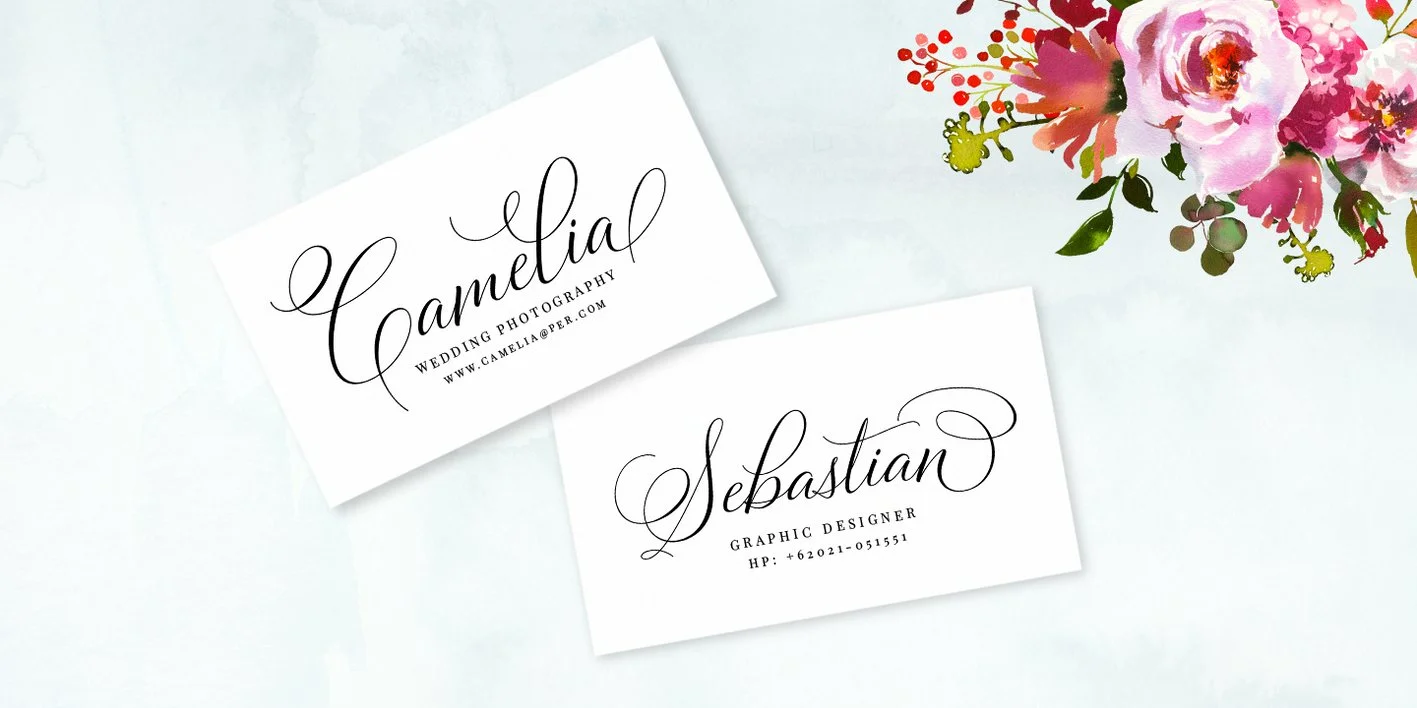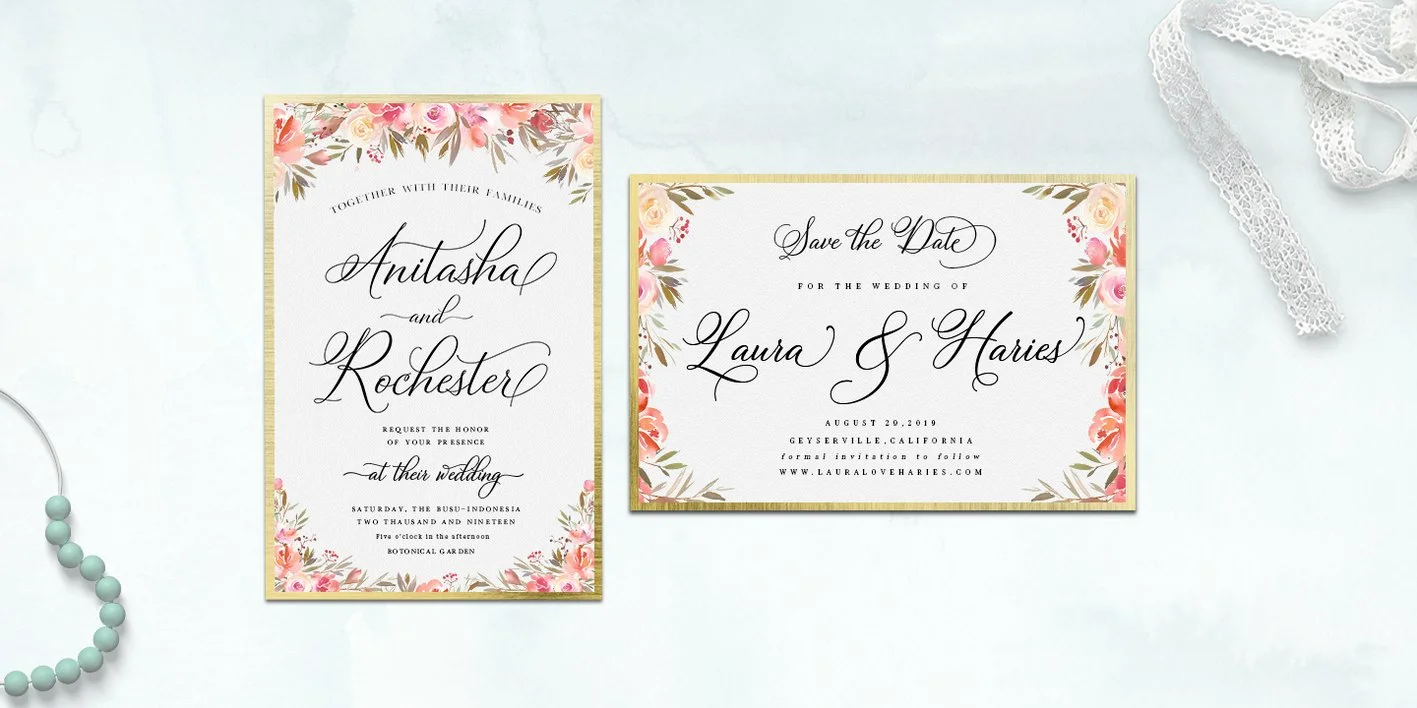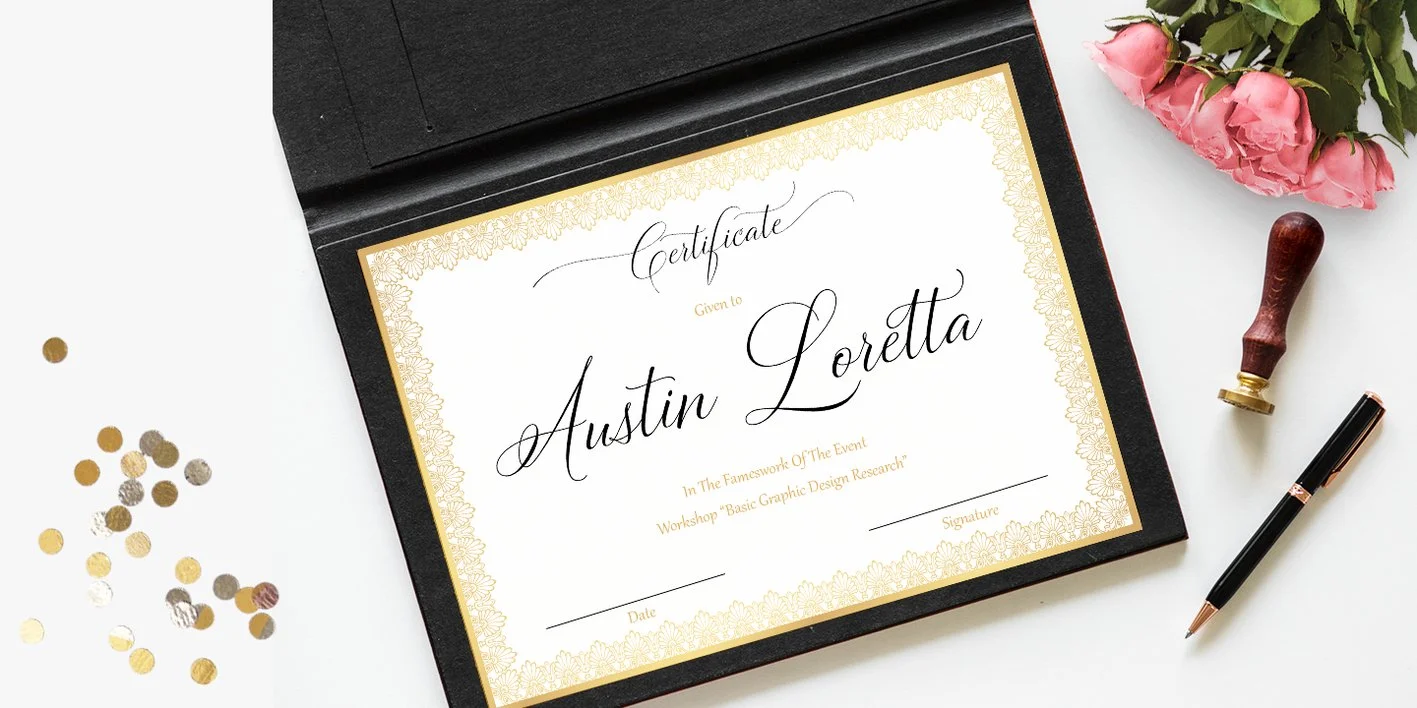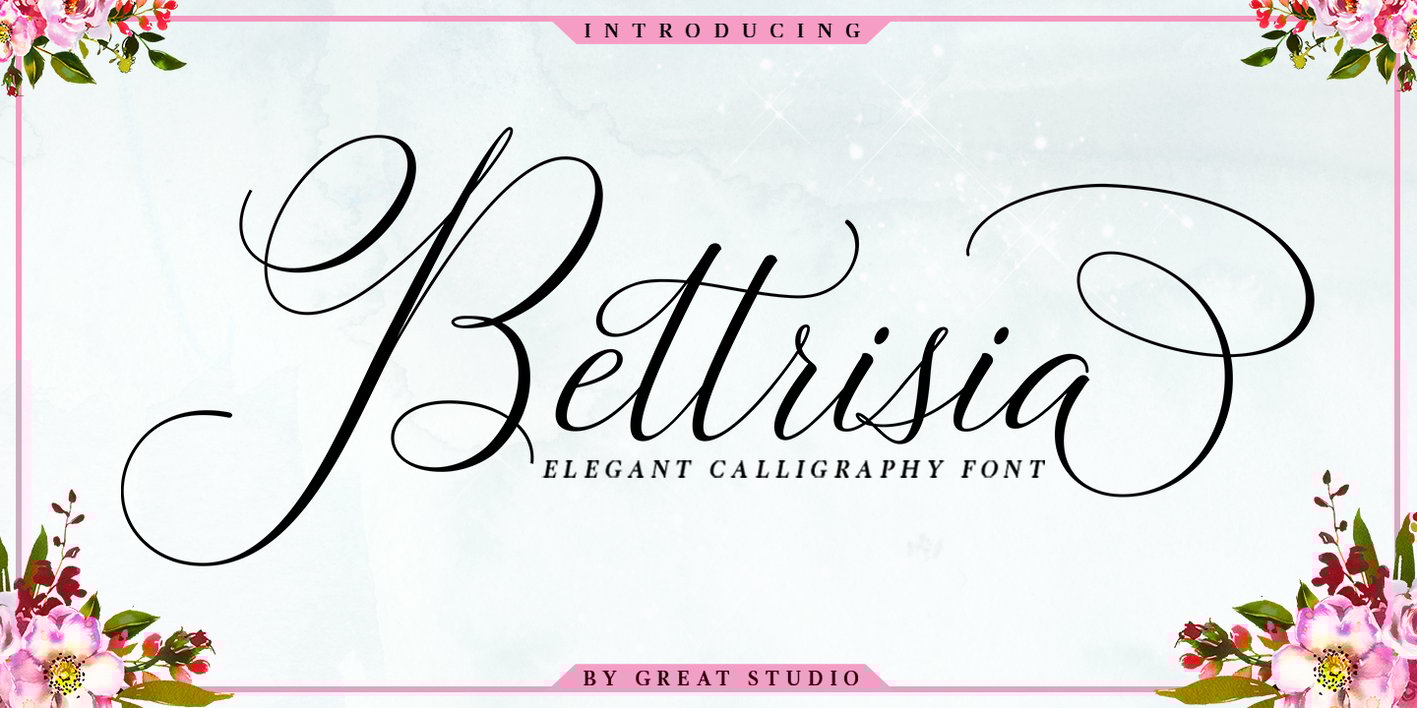
Bettrisia Script Font
There is a particular satisfaction in finding a typeface that delivers refined proportions and careful stroke modulation without compromise. Bettrisia Script consistently provides it. The typeface brings an elegant, calligraphic sensibility to a broad range of creative disciplines, with strong typographic hierarchy support that holds up whether the work is print-first or screen-first.
In practice, Bettrisia Script proves particularly effective for perfume labels, feminine branding, social media graphics, advertising campaigns, editorial layouts. Designers reaching for it find that the type decisions feel resolved rather than laboured — a useful quality when client timelines are tight.
The range of applications extends to product labels, event signage, signage systems, high-end cosmetic packaging. That breadth is deliberate: the proportions and spacing were stress-tested across a wide range of mock briefs before the typeface was finalised.
Pairing Bettrisia Script with a contrasting serif or a neutral grotesque gives mixed-format layouts a clear visual grammar without requiring constant size adjustments to establish hierarchy.
UX designers establishing typographic systems for digital products find Bettrisia Script a reliable choice for projects that demand both personality and restraint. The design avoids the self-conscious quirkiness that dates quickly, settling instead for considered distinctiveness that holds up over time.